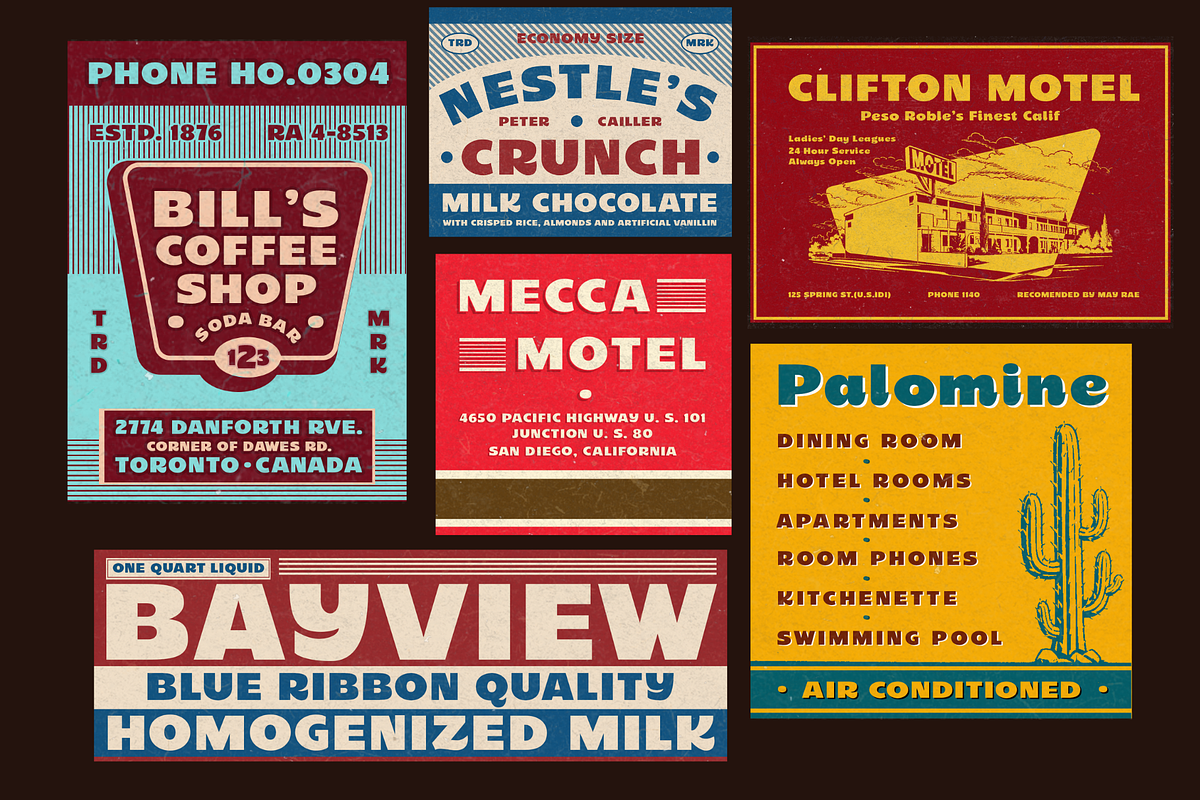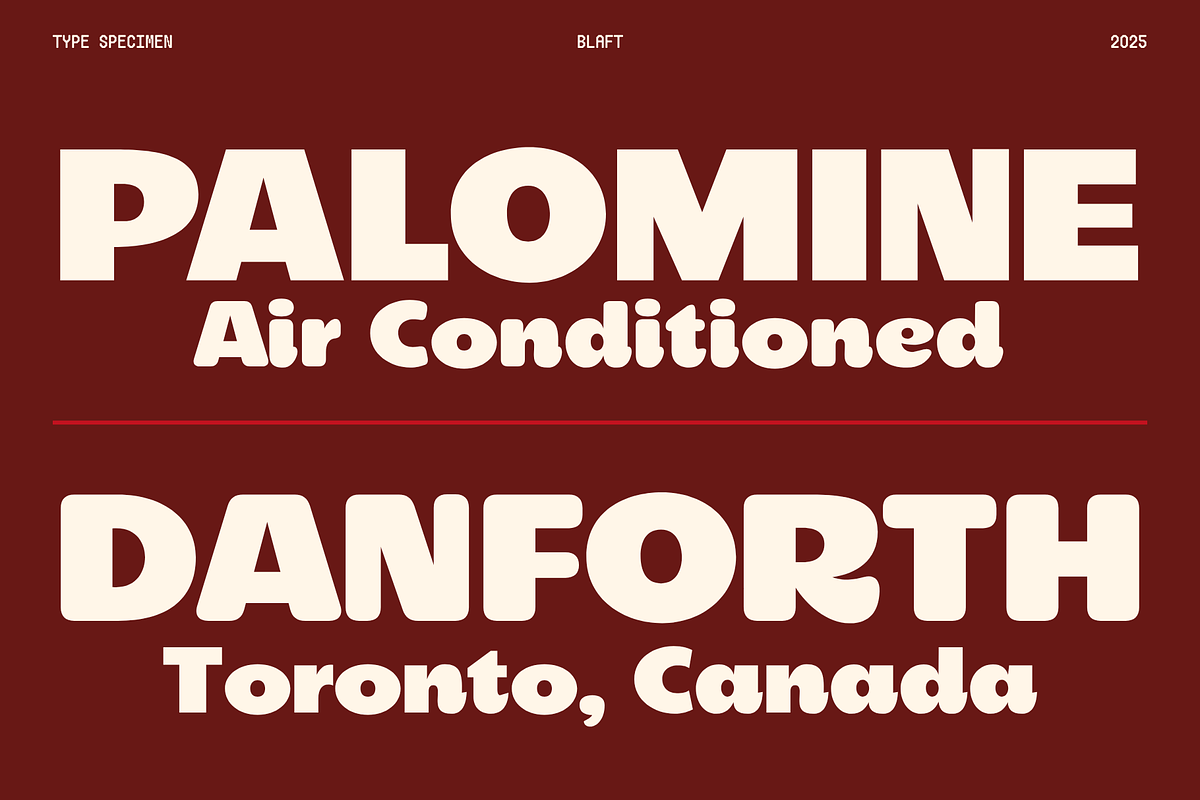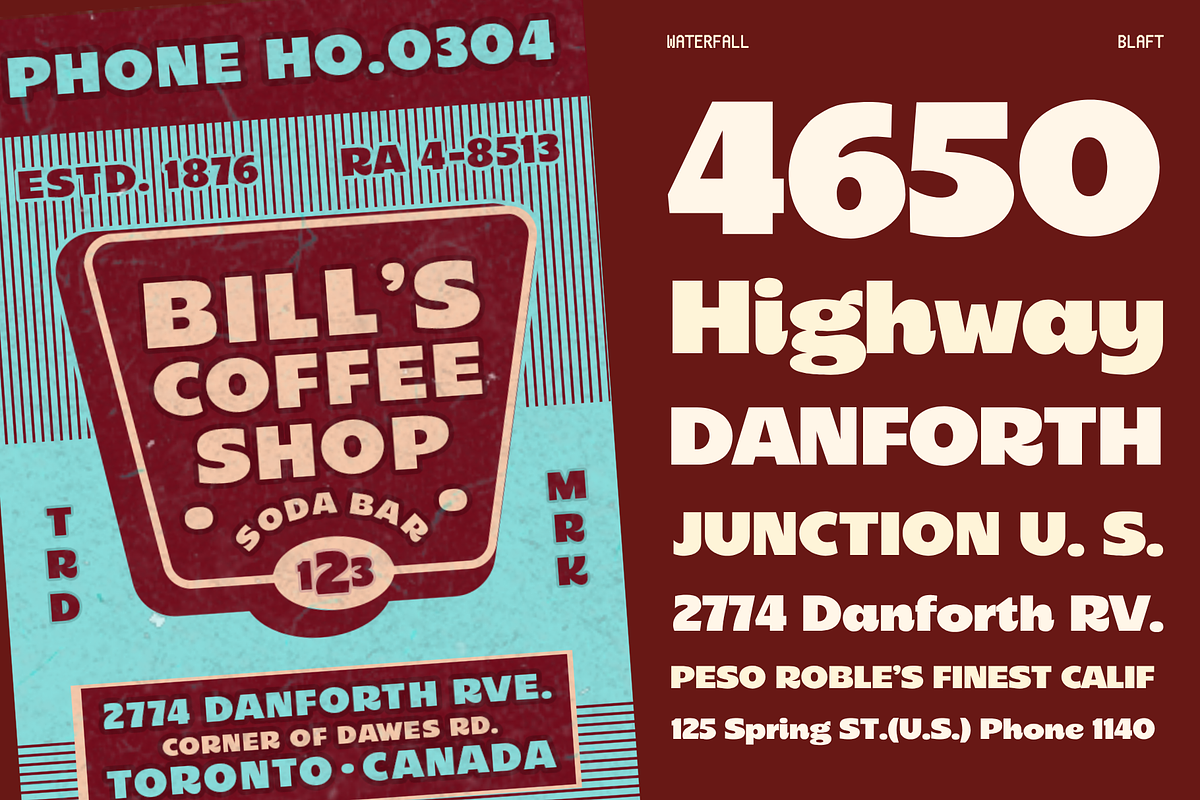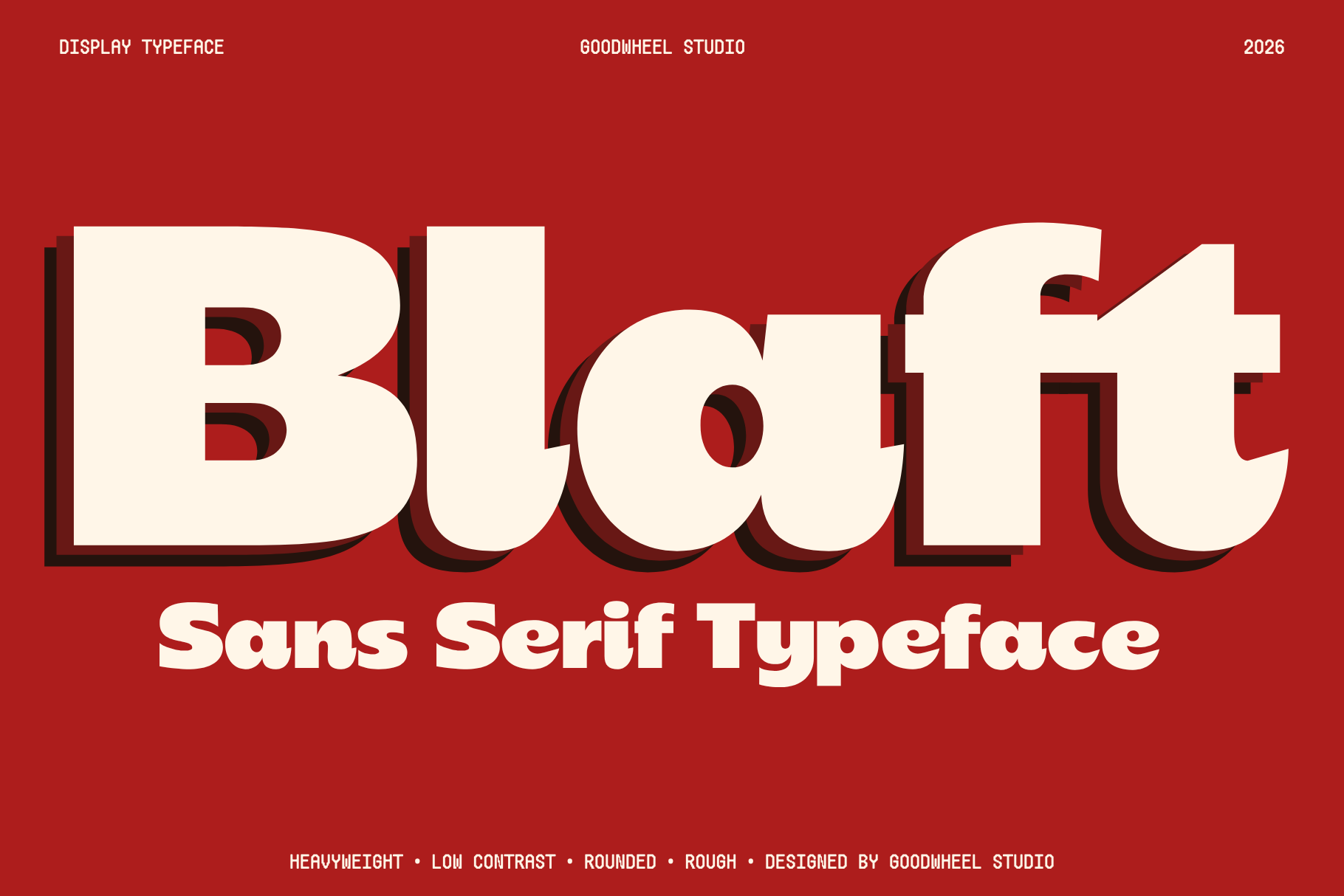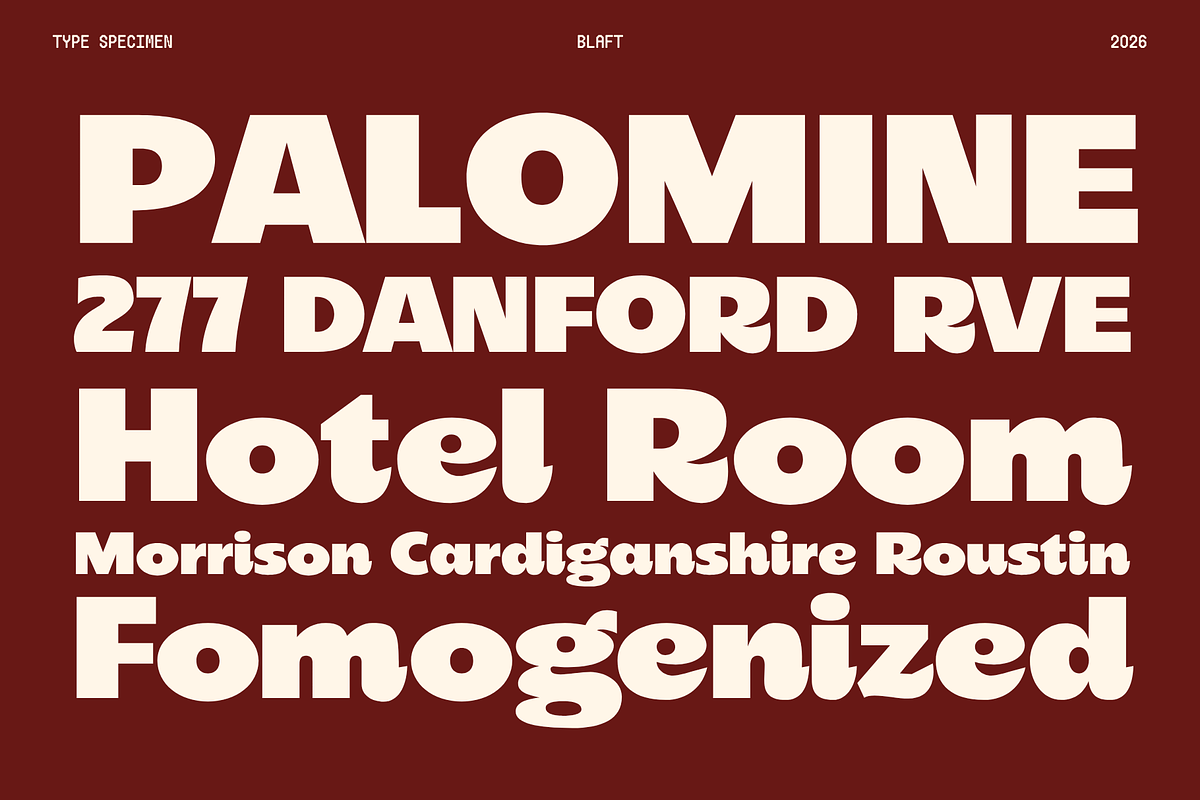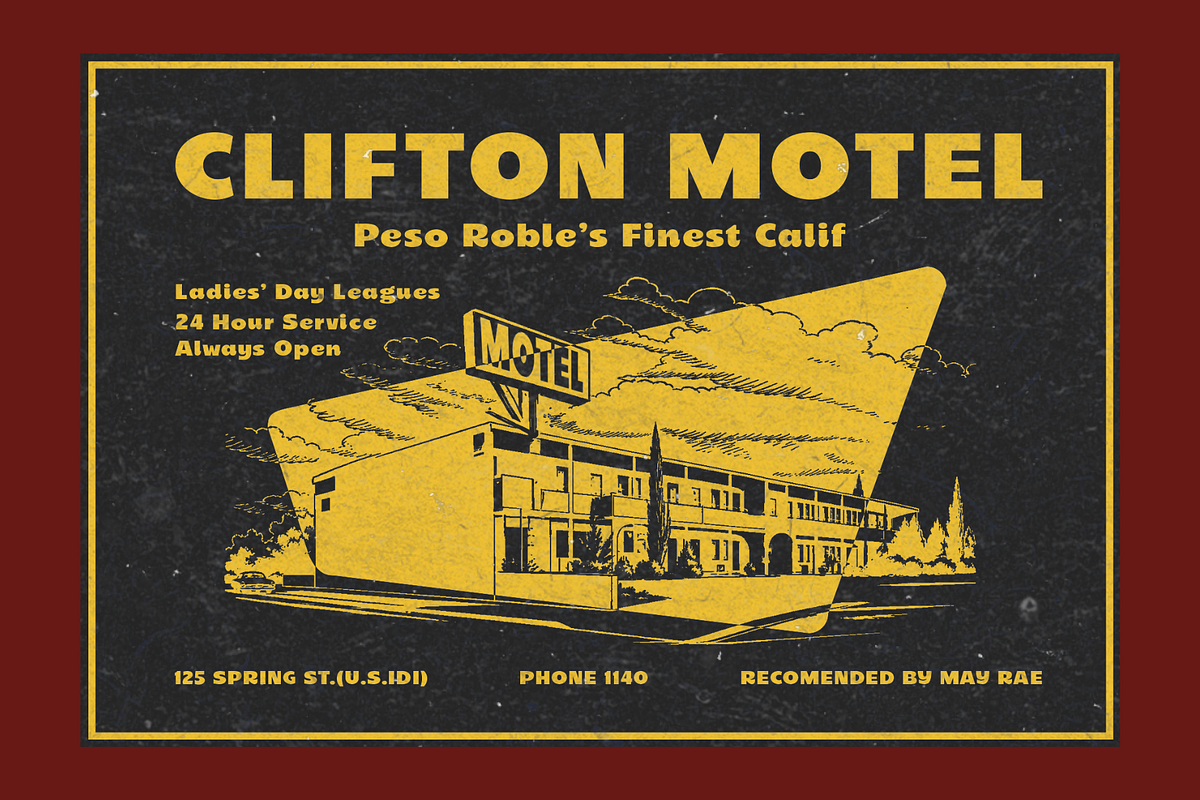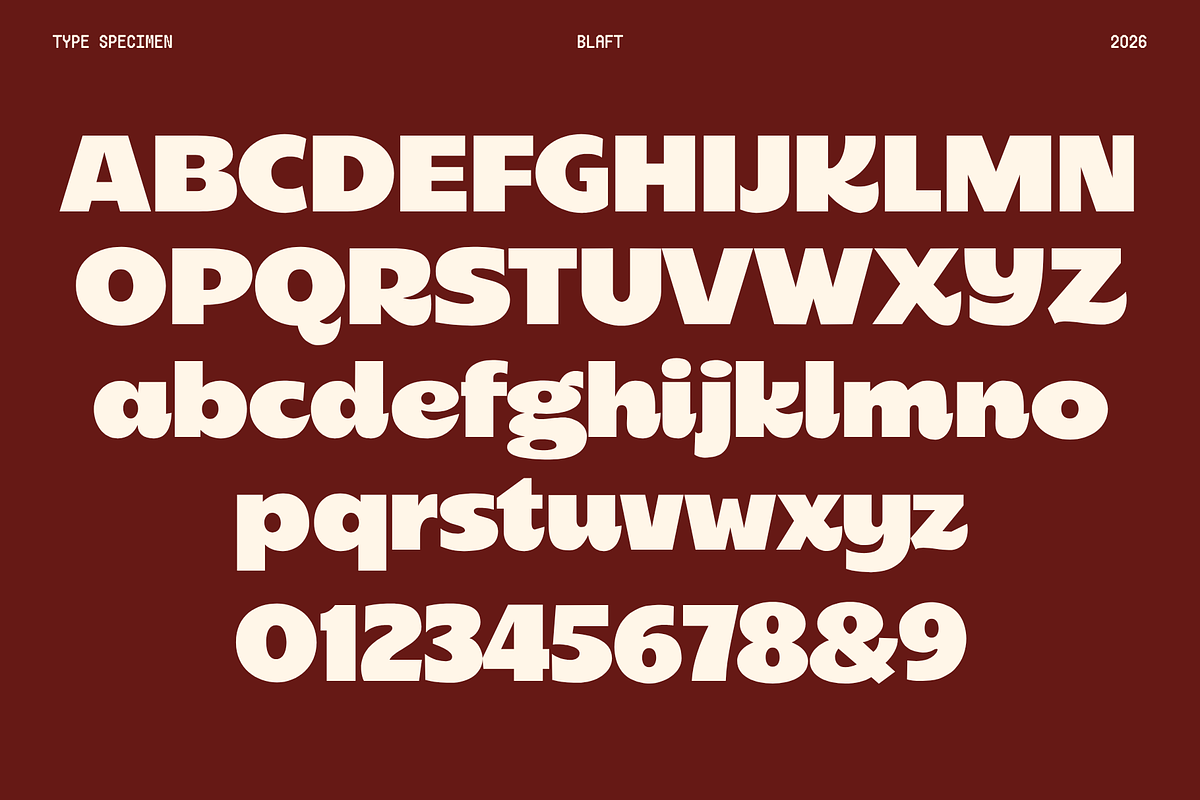
Blaft | Handwritten Typeface
Blaft is a bold display typeface packed with playful shapes, quirky details, and a strong retro personality. Its chunky letterforms combine soft curves, unexpected cuts, and expressive proportions, giving every word a lively and distinctive character. Designed for headlines, posters, packaging, branding, merchandise, album artwork, and social media graphics, Blaft works especially well when you want typography to become the main visual statement. The mix of geometric construction and unconventional forms gives it a nostalgic yet contemporary feel. With uppercase, lowercase, numerals, punctuation, and essential symbols, Blaft is ready to bring fun, confidence, and personality to creative projects.